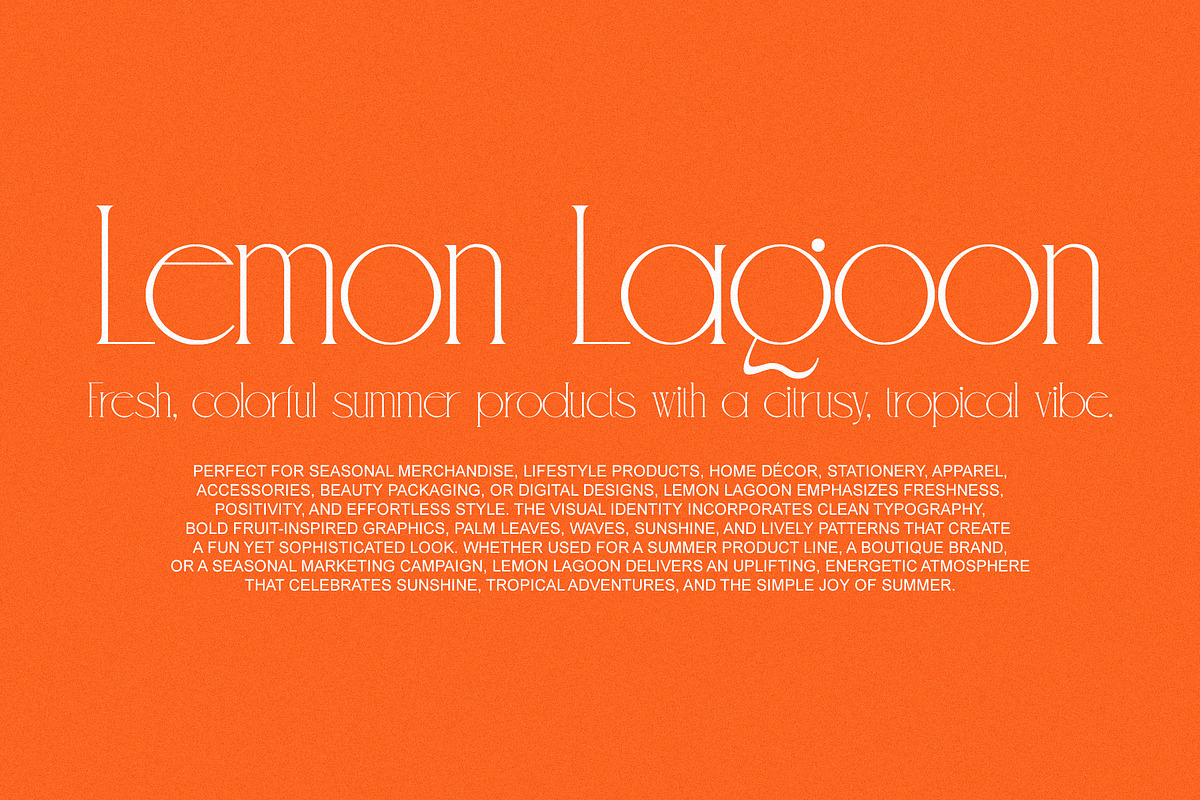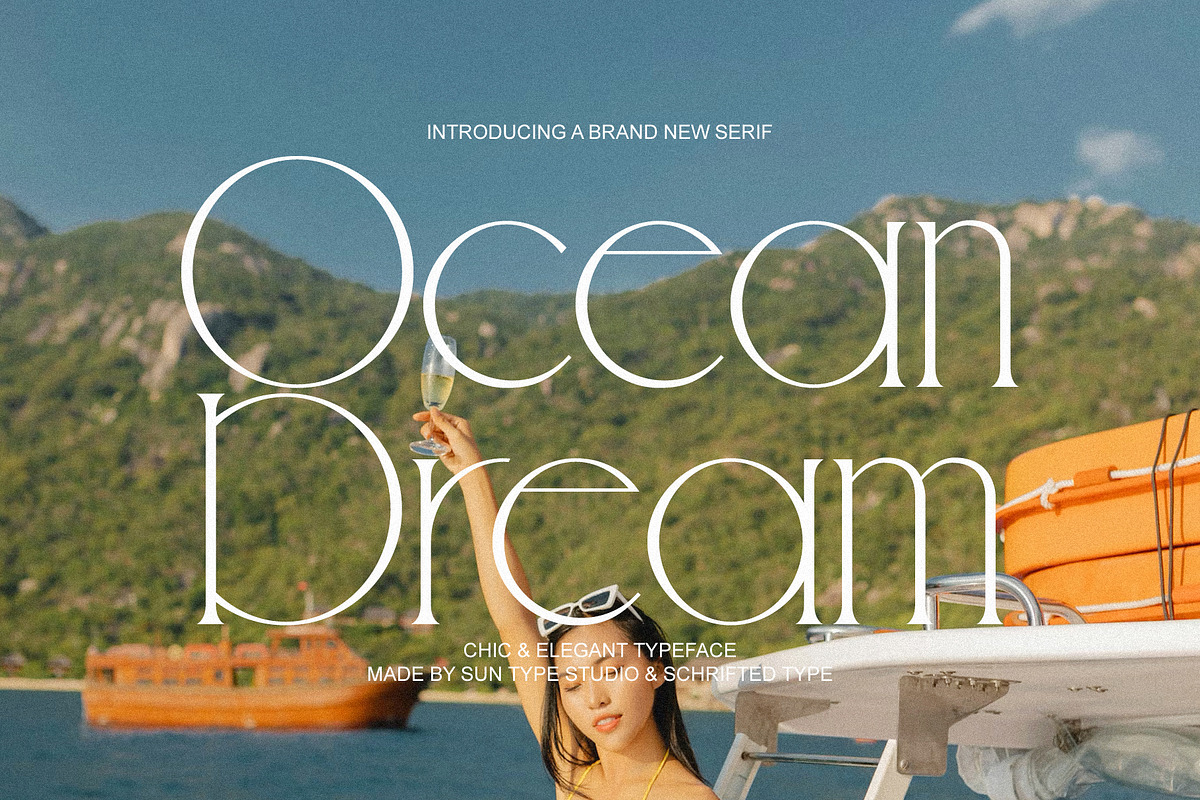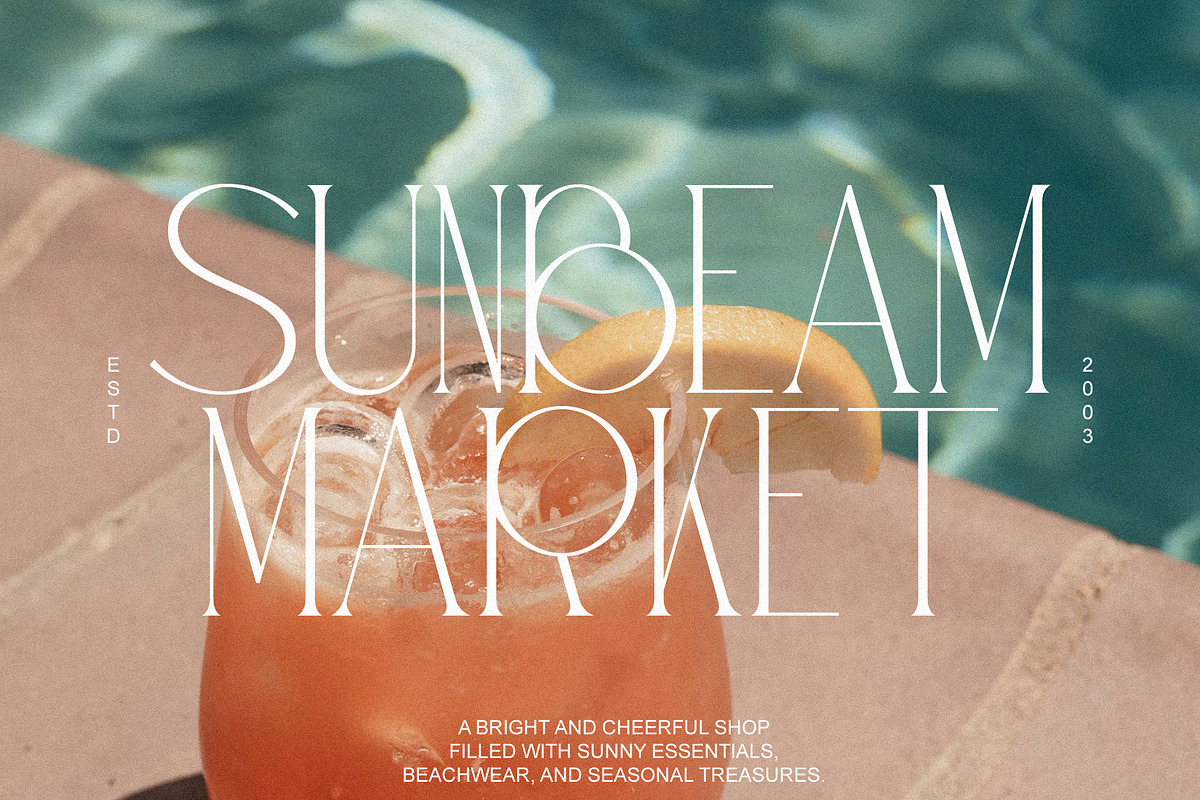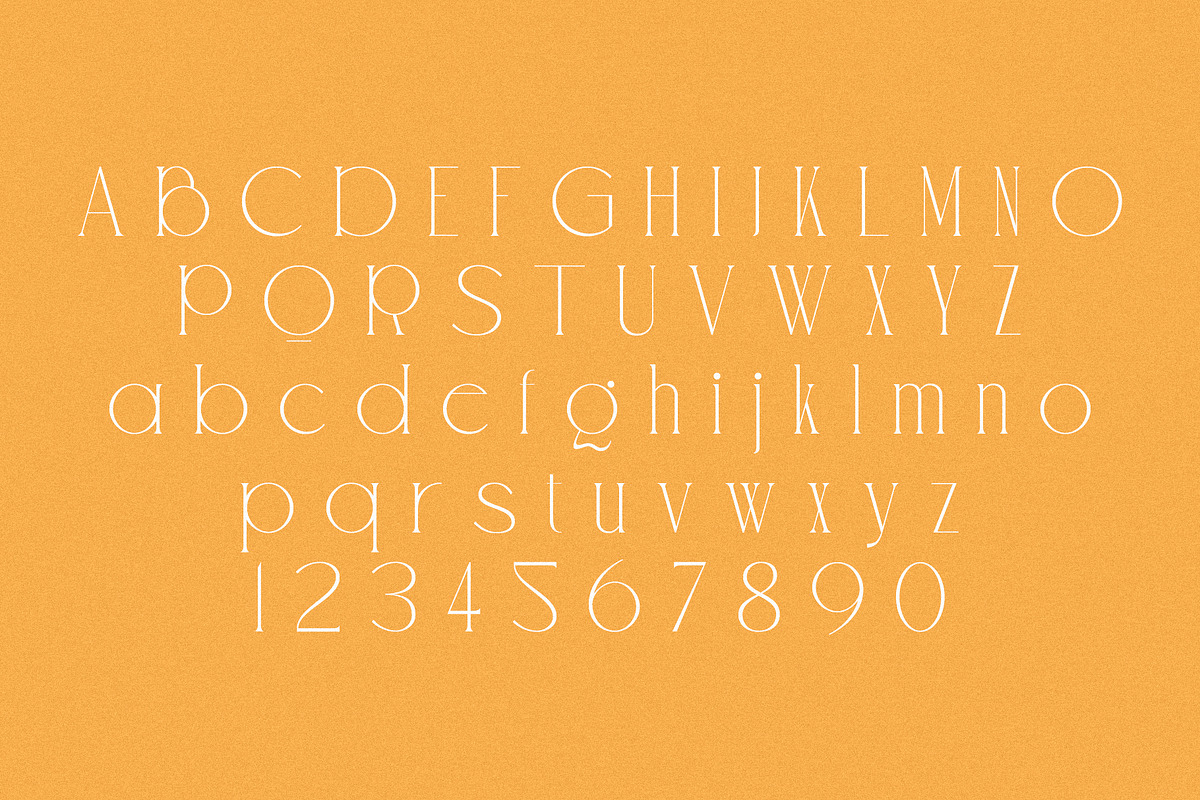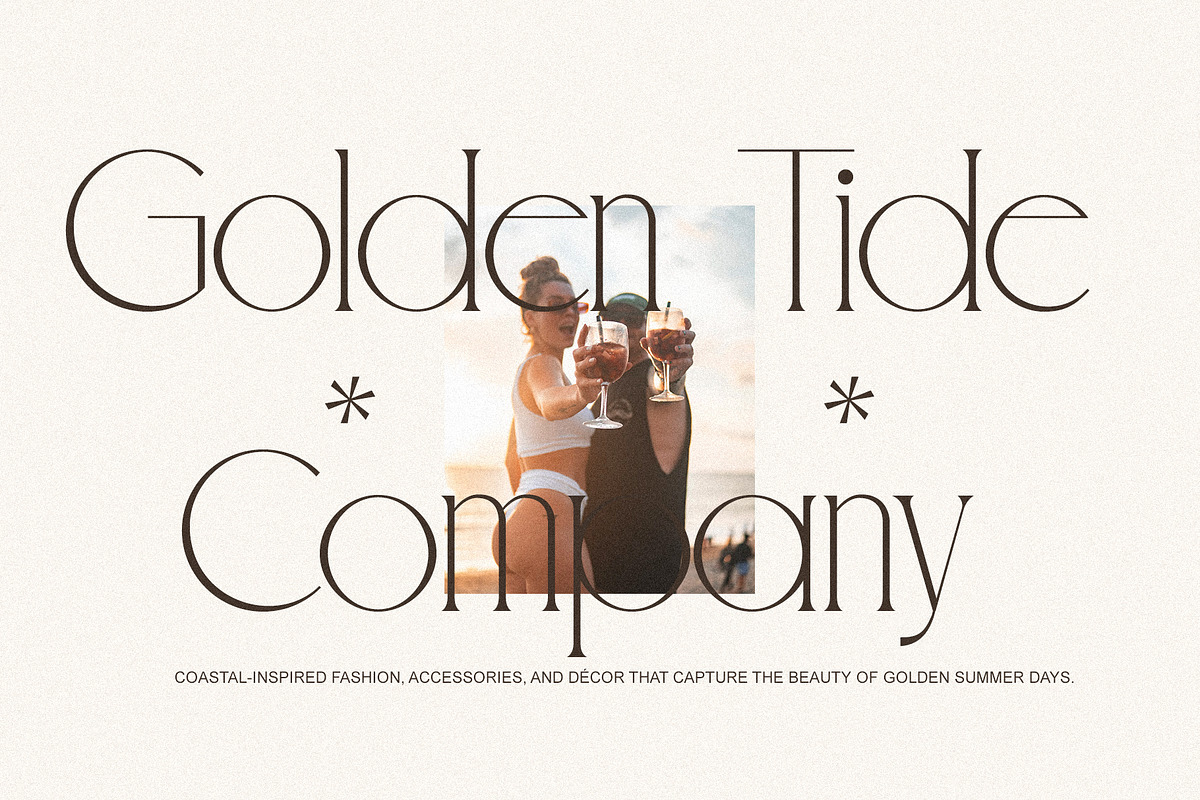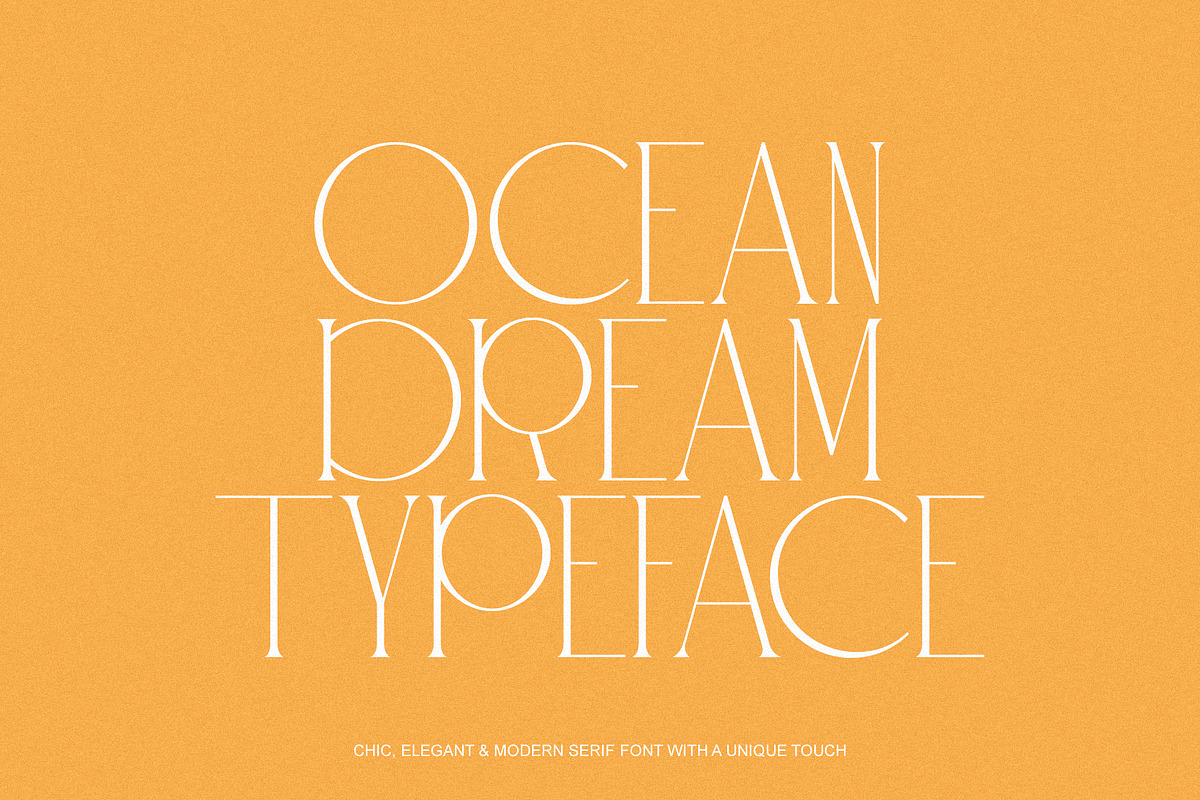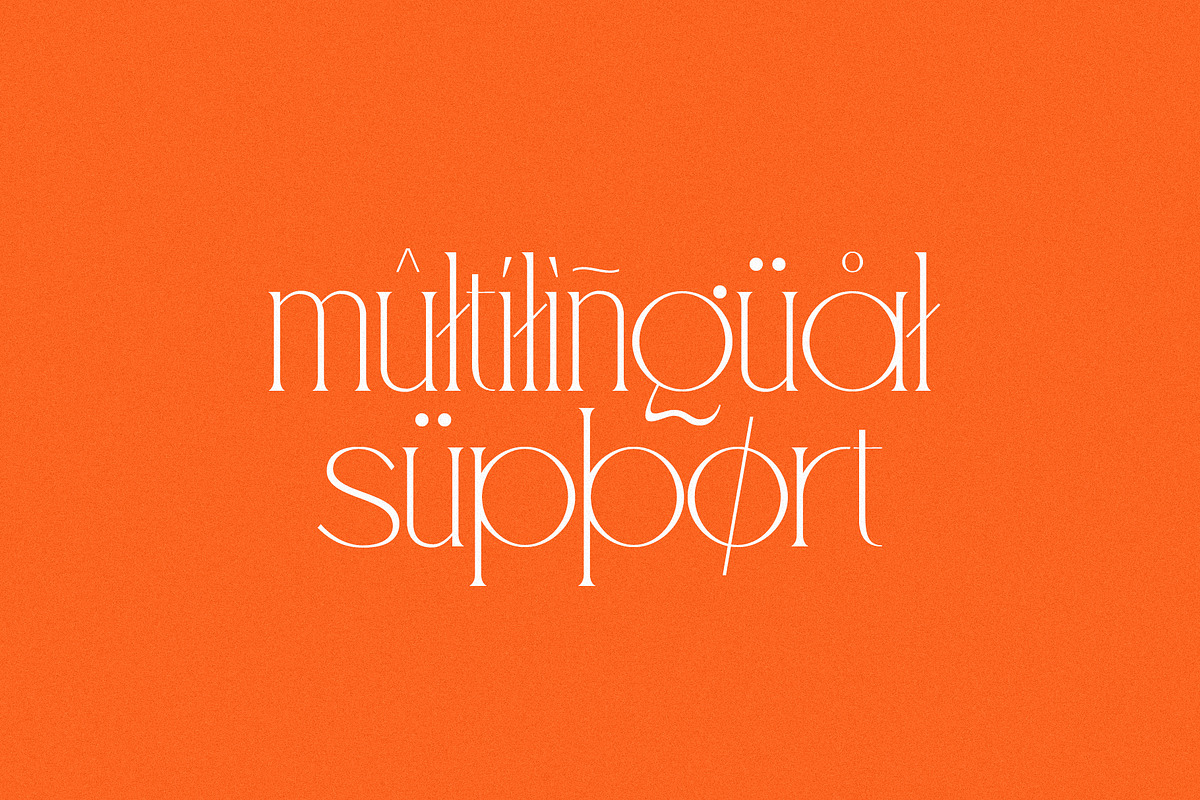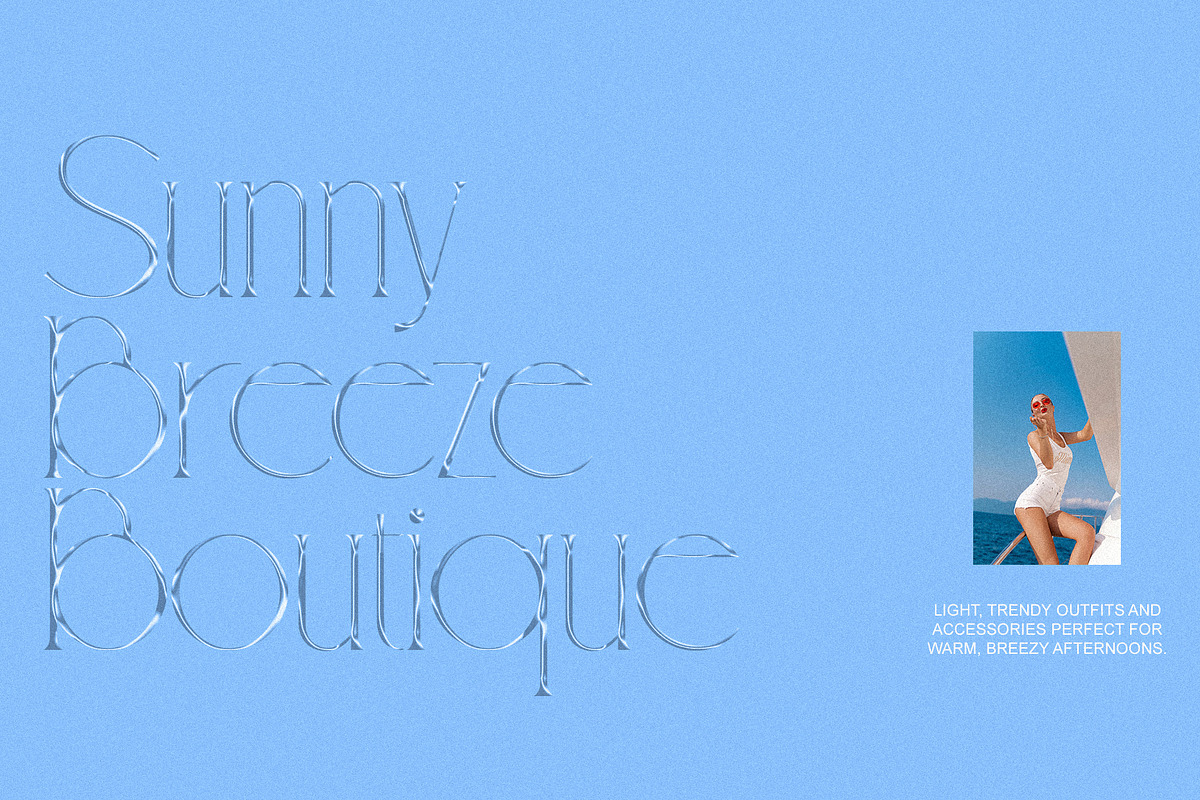
Ocean Dream - Chic & Elegant Serif
Ocean Dream is a sophisticated serif typeface that blends timeless elegance with modern refinement. Designed with graceful curves, stylish contrasts, and beautifully crafted letterforms, it brings a luxurious feel to every project. Perfect for branding, logos, editorial layouts, wedding invitations, fashion campaigns, social media graphics, packaging, and premium product designs, Ocean Dream adds a distinctive touch of class while maintaining excellent readability. Whether you're creating a minimalist aesthetic or a bold, high-end visual identity, Ocean Dream delivers versatility and charm that make your designs stand out.